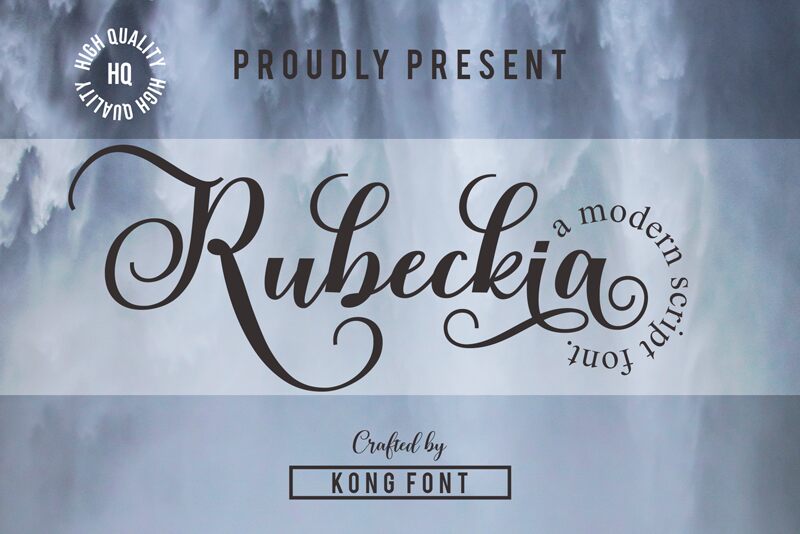
Rubeckia font family by Kong Font comes in 4 font styles to present users with multiple options to create their designs. The free font is classic calligraphy with sophisticated and featured ornamental details that shine with its subtle elegant vibe. Rubeckia combines the stylish decorative aspects of calligraphy with a modern appeal and a contemporary touch, taking away the visual dynamics of the harmoniously flowing characters. This combination leads to a premium font that can shock with its impact, especially with its proper use.
Designers aim to use Rubeckia mainly for logotypes, given the font’s ability to smoothly decorate the letters of the business name. This remarkable ability can extend to other purposes like greeting cards, branding, packaging (including labels), social media posts, advertisements, newsletters, and magazine covers.